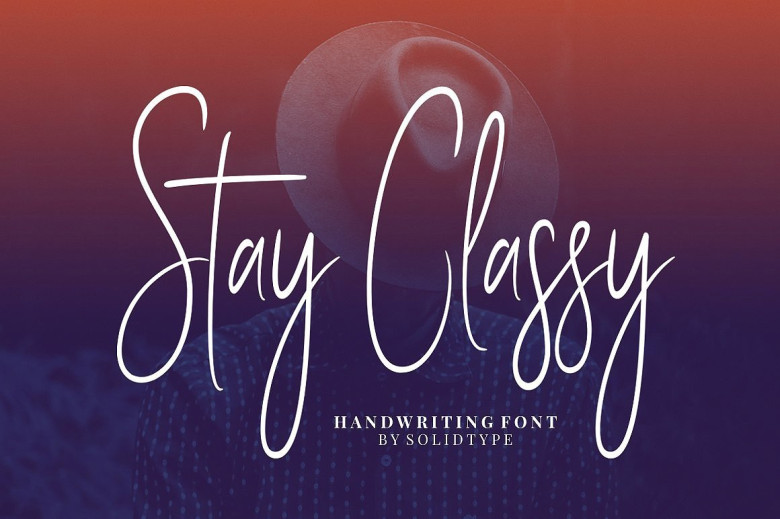
Stay Classy Script Font
Introducing the new ‘Stay Classy’ handwritten script font. It is was designed and shares by Solidtype. A contemporary font with fashionable and elegant script style. This font will perfect for many different project for blogging, social media, branding, wedding invites, cards etc.